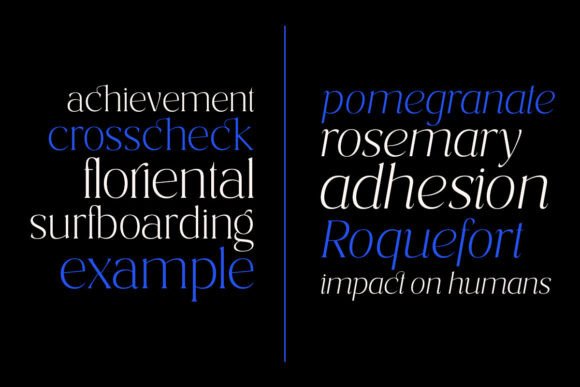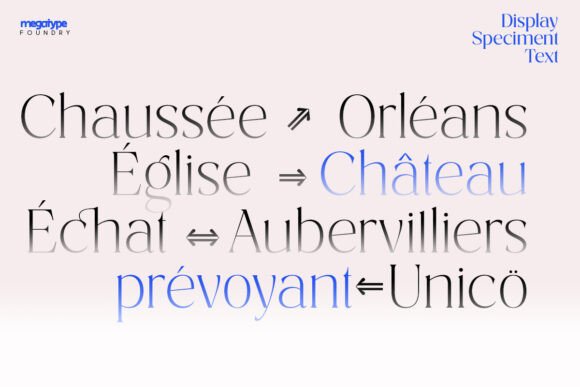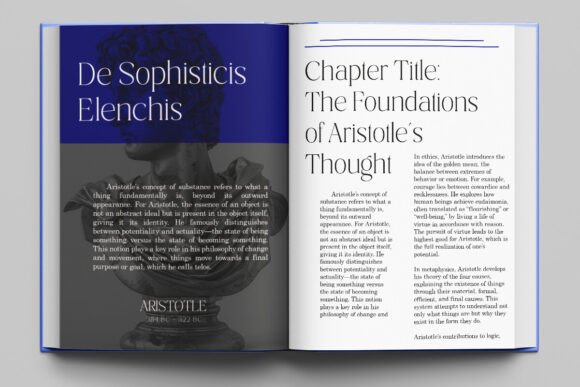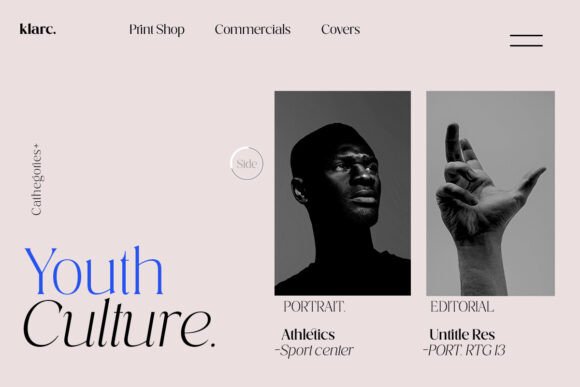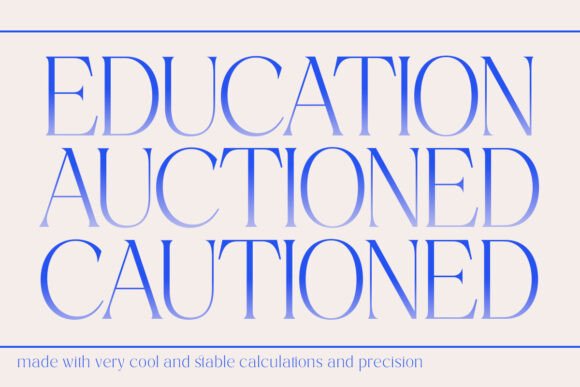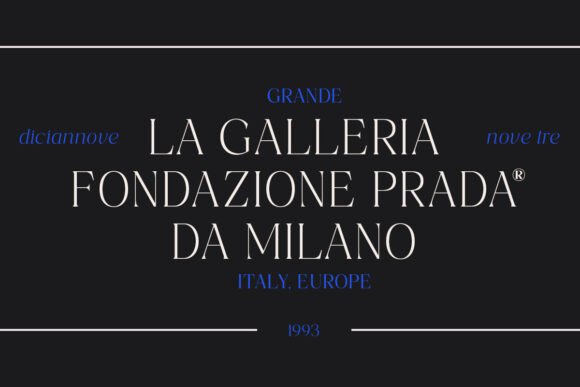
Discover the Elegance of Costaline Extra Light Font
In the world of typography, a font can make all the difference in the aesthetic and effectiveness of a design project. For designers and crafters seeking a harmonious and stylish contemporary serif typeface with a classic feel, Costaline Extra Light is an exceptional choice. This versatile font is designed to elevate your design projects, offering a perfect blend of elegance and readability.
What is Costaline Extra Light?
Costaline Extra Light is a meticulously crafted serif typeface that exudes a classic feel while maintaining a contemporary edge. Its design is characterized by clean lines, subtle curves, and a light touch that brings a sense of sophistication to any project. This font is not just a tool for communication; it’s an element that can enhance the visual appeal and emotional impact of your designs.
Key Features of Costaline Extra Light
- Harmonious and Stylish Design: Costaline Extra Light boasts a harmonious design that blends seamlessly into various contexts, from editorial designs to digital platforms.
- Contemporary Serif Typeface: As a serif typeface, it offers the classic feel that serifs are known for, while its contemporary design ensures it remains relevant and fresh.
- Includes Vertical and Italic Styles: The inclusion of vertical and italic styles provides designers with the flexibility to explore and refine their designs, adding depth and nuance to their work.
- Perfect for Various Design Projects: Whether you’re working on editorial designs, headlines, branding projects, logo design, packaging, magazine titles, advertisements, or web design, Costaline Extra Light is a versatile choice that can adapt to your creative needs.
Applications of Costaline Extra Light
The versatility of Costaline Extra Light makes it suitable for a wide range of applications. Here are some of the areas where this font truly shines:
- Editorial Design: Bring elegance to magazines, newspapers, and journals with Costaline Extra Light, making your content stand out with its classic yet contemporary appeal.
- Headlines and Titles: Use it to create compelling headlines and titles that capture attention and convey a sense of sophistication.
- Branding and Logo Design: Establish a strong brand identity with a font that communicates elegance, stability, and professionalism.
- Packaging: Elevate your product packaging with a font that adds a touch of class and distinguishes your brand in a crowded market.
- Web Design: Enhance your website’s typography with Costaline Extra Light, providing a pleasant reading experience for your visitors.
Why Choose Costaline Extra Light?
Choosing Costaline Extra Light for your design projects comes with several benefits:
- Enhanced Readability: Its light and airy feel ensures that your text is easy to read, making it perfect for both short and long texts.
- Unique Visual Nuances: The font’s design reveals many visual nuances and hidden secrets, allowing designers to explore a wide range of creative possibilities.
- Time-Saving: With its comprehensive set of styles, designers can save time and streamline their workflow, focusing on creativity rather than technical limitations.
Costaline Extra Light is more than just a font; it’s a design companion that can elevate your projects to new heights of elegance and sophistication. Its harmonious and stylish design, combined with its versatility and readability, makes it an ideal choice for designers and crafters across various disciplines. Whether you’re aiming to create a stunning editorial design, a memorable brand identity, or an engaging digital platform, Costaline Extra Light is a perfect ally in your creative journey.